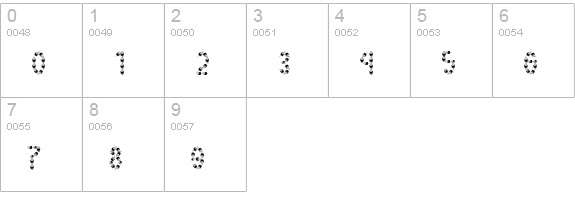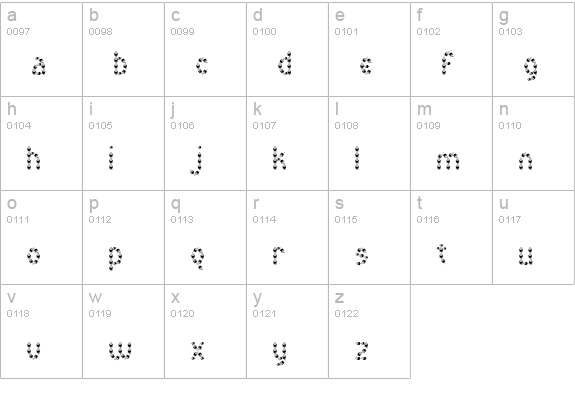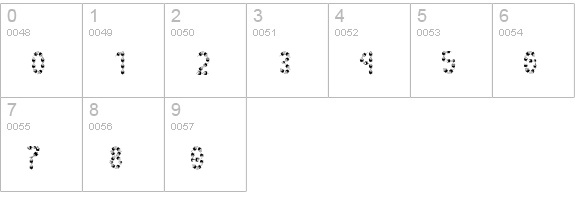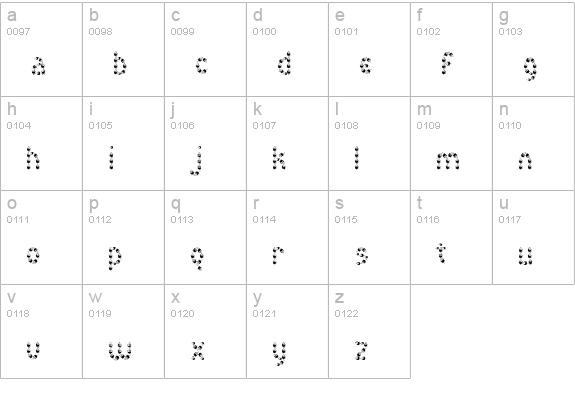
Introducing MousyFont, a charming and playful typeface that will add a touch of whimsy to your designs! This delightful font features cute, rounded letters that bring a sense of fun and friendliness to any project. Whether you're creating invitations, greeting cards, posters, or social media graphics, MousyFont is sure to make a statement. Best of all, MousyFont is completely free to download at FontsMarket.com! This means you can easily access this adorable font and start using it in your designs right away. Don't miss out on the opportunity to add a touch of sweetness to your projects with MousyFont. Download it now and let your creativity soar!